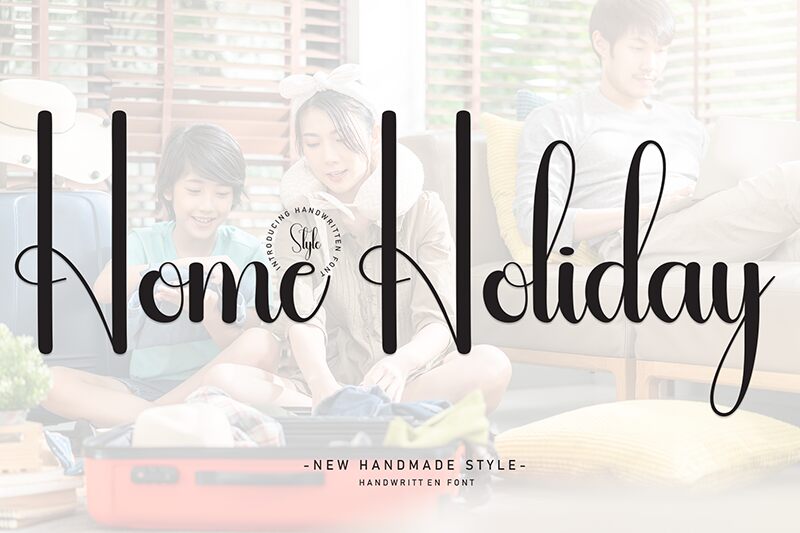
Home Holiday
Home Holiday font designed by Andi Moz is an elegant and sophisticated brush font, created with a natural handwriting style. Its graceful curves showcase a beautiful contrast between solid and thin elements for an original ornamental style that brings its users new perspectives with each display. With flowing lines present in each character, it shares familiarity as well as novel features.
And since inspiration strikes when least expected, individuals can use Home Holiday for personal projects such as wedding invitations and cards. Logos are usually the most iconic representations of businesses, so why not add the needed flair? Use the font for branding designs or packaging; write attractive headlines with it or decorate t-shirts with your favorite quotes.